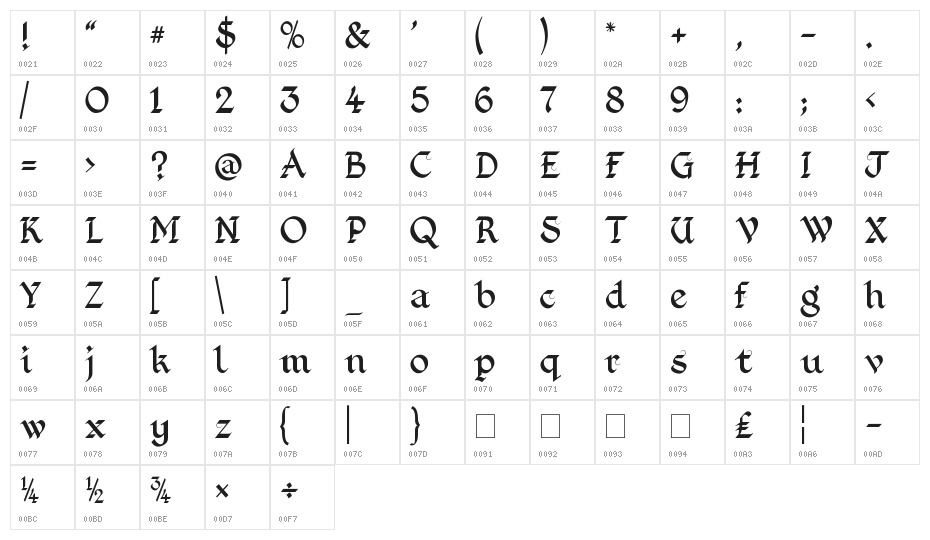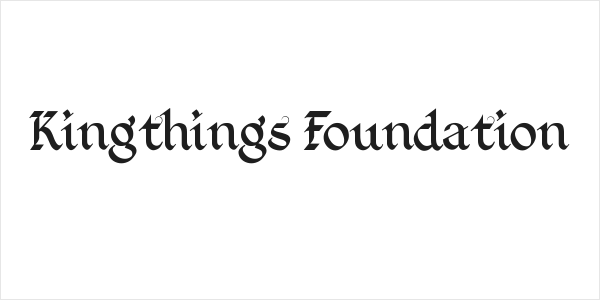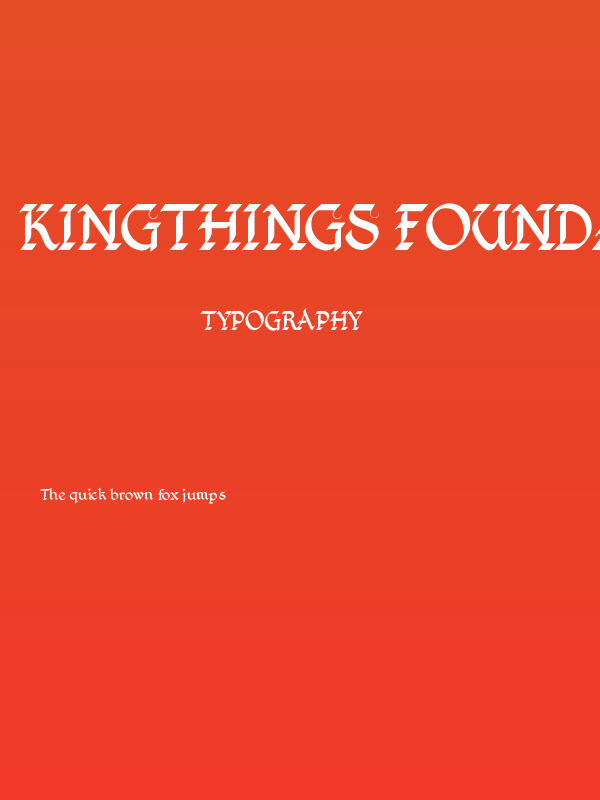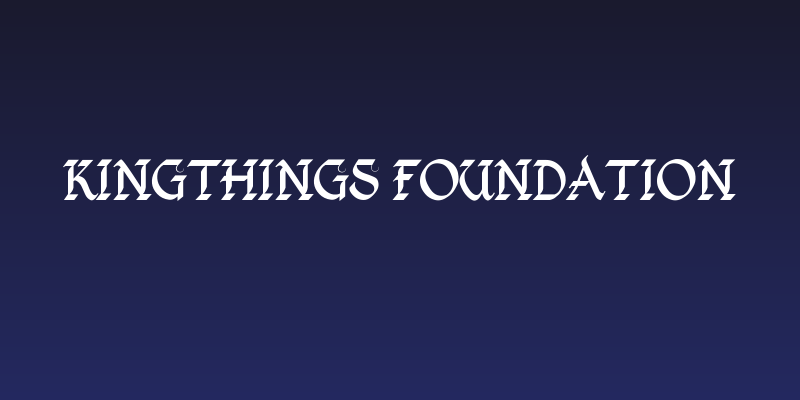
Kingthings Foundation Font
Kingthings Foundation Description
This font features a unique blend of medieval and modern elements, characterized by its sharp, angular serifs and bold strokes. The uppercase letters exhibit a strong presence with their dramatic slants and intricate details, while the lowercase letters maintain a more rounded and approachable form. The numerals are distinct and easily readable, complementing the overall style. Special characters are crafted with the same attention to detail, ensuring consistency throughout the typeface. This font's design is both decorative and functional, making it suitable for a variety of creative applications.
| Proposed Projects | Ideal for fantasy-themed designs, book covers, posters, and branding that requires a touch of elegance and historical flair. |